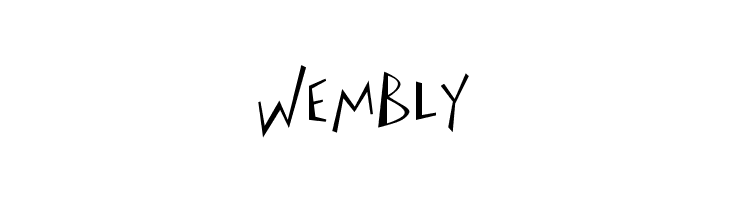
Major Force Extra-Italic Font
- Font: Major Force Extra-Italic
- Weight: Extra-Italic
A playful and whimsical font with irregular, dynamic letterforms.